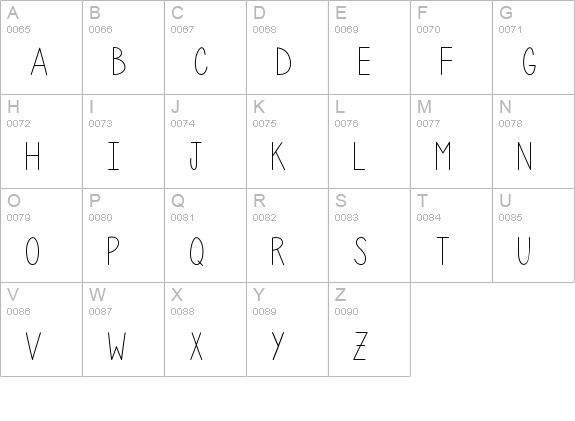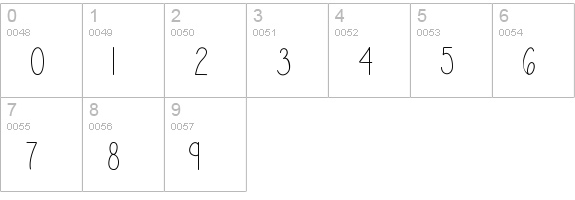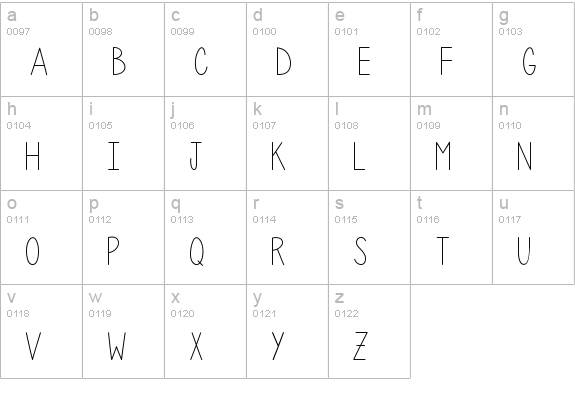
PenelopeAnne Font Details
Introducing PenelopeAnne font, a beautifully crafted typeface that exudes elegance and sophistication. This unique font combines delicate curves with a touch of whimsy, making it perfect for a wide range of design projects. PenelopeAnne font is not only visually stunning, but it also offers exceptional versatility. Whether you're designing a logo, creating a wedding invitation, or crafting a magazine layout, this font will effortlessly elevate your work to new heights. One of the best features of PenelopeAnne font is that it is completely free. Yes, you read that right - this stunning font is freely available to download at FontsMarket.com. This means that you can unleash your creativity without any financial constraints, allowing you to experiment and explore to your heart's content. With its extensive character set, PenelopeAnne font supports multiple languages and can be used in various contexts. From headlines to body text, this font adapts seamlessly to any design challenge you may encounter. Furthermore, PenelopeAnne font is designed with attention to detail, ensuring optimal legibility and readability. Its clean lines and well-balanced letterforms make it a pleasure to read, even at smaller sizes. Don't miss out on the opportunity to add PenelopeAnne font to your design toolkit. Download it for free today at FontsMarket.com and let your creativity soar. Whether you're a seasoned designer or just starting out, this font will inspire and empower you to create truly remarkable designs.